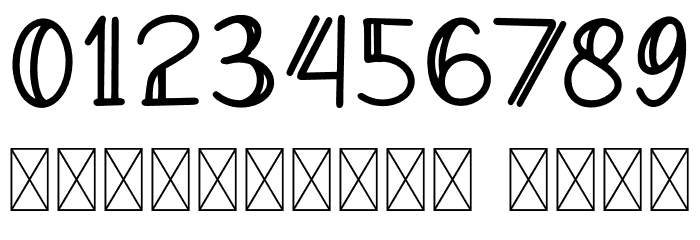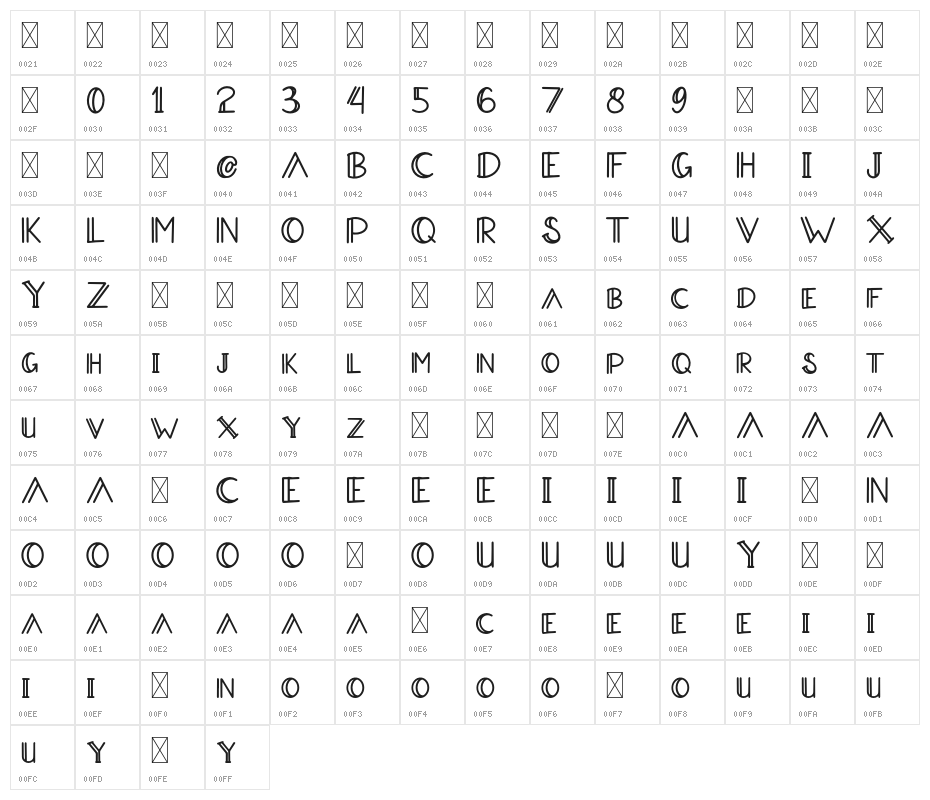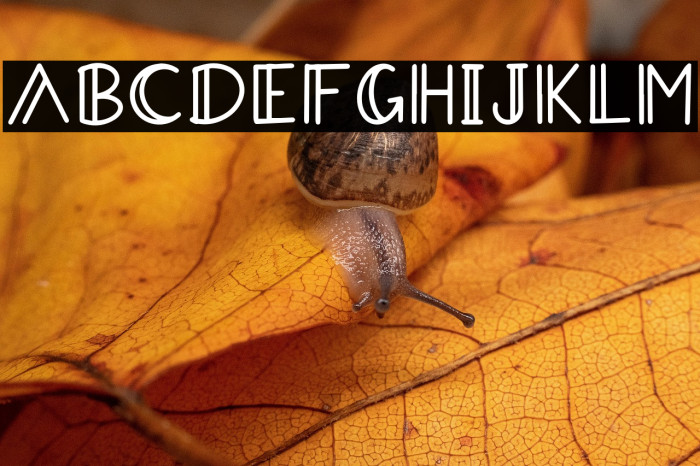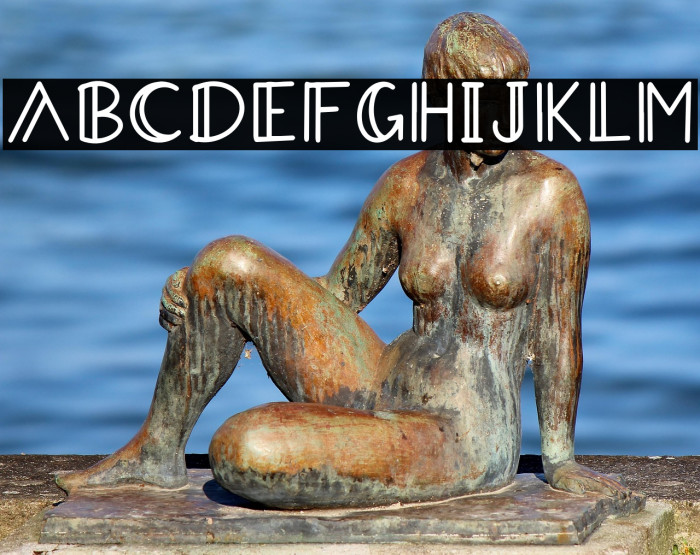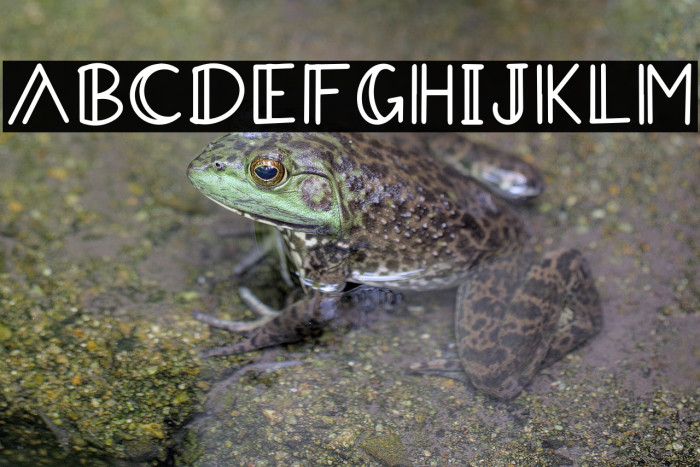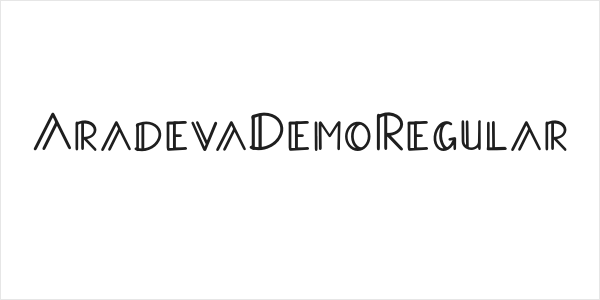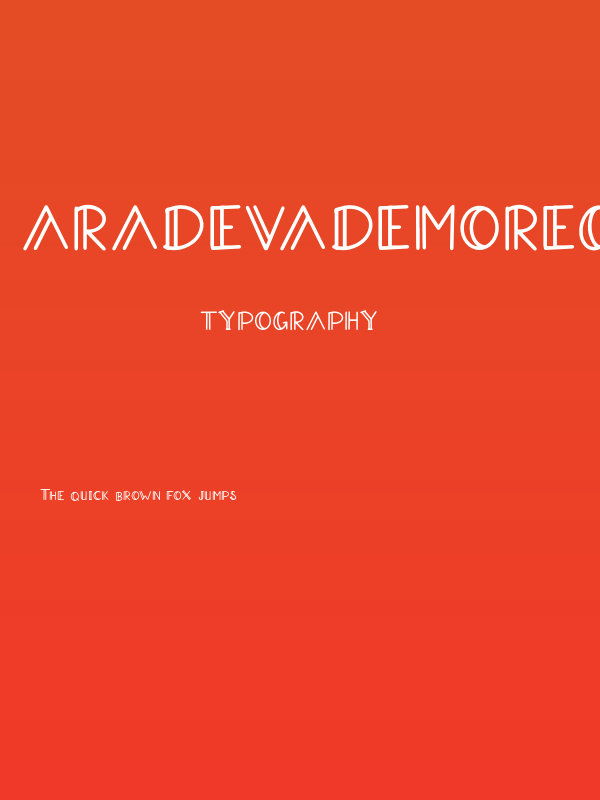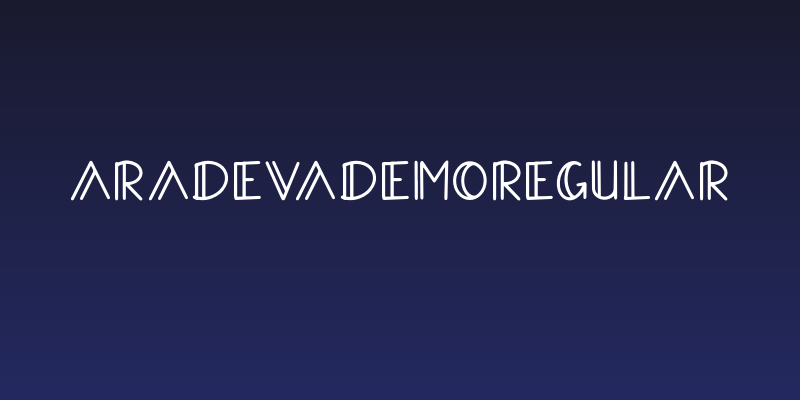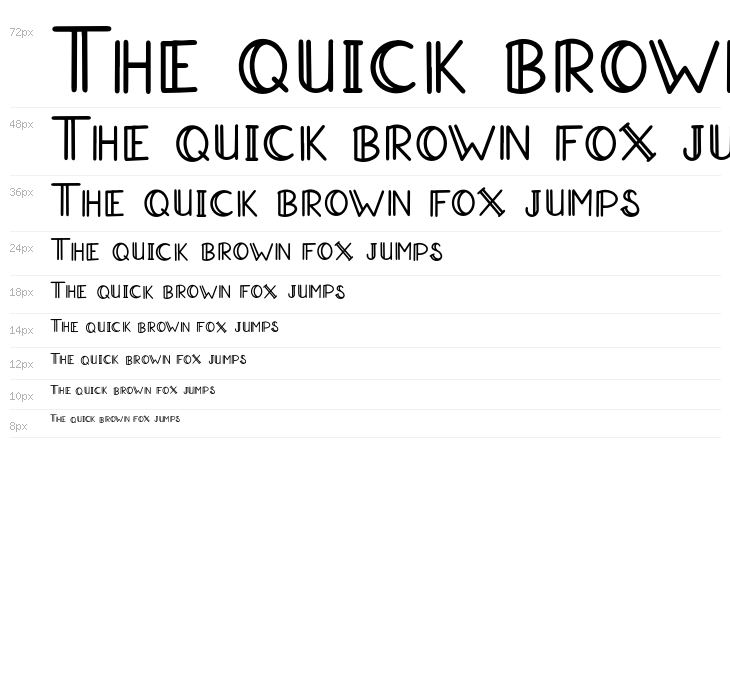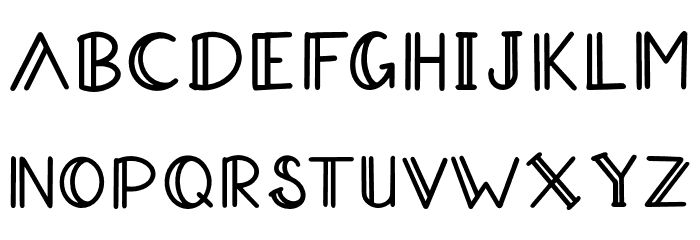
AradevaDemoRegular Font
AradevaDemoRegular Description
This font features a playful and artistic design with a unique blend of geometric and hand-drawn elements. The uppercase letters are characterized by bold, angular lines and subtle curves, creating a dynamic and engaging appearance. The lowercase letters maintain a similar style, with a slightly more relaxed and flowing form. Numbers are distinct and easy to read, with a consistent stroke width that complements the overall aesthetic. The special characters are creatively designed, adding a whimsical touch to the font. This font is perfect for projects that require a fun and creative vibe.
| Overall Style | Playful, Artistic |
| Proposed Projects | Ideal for children's books, creative posters, playful branding, and artistic invitations. |